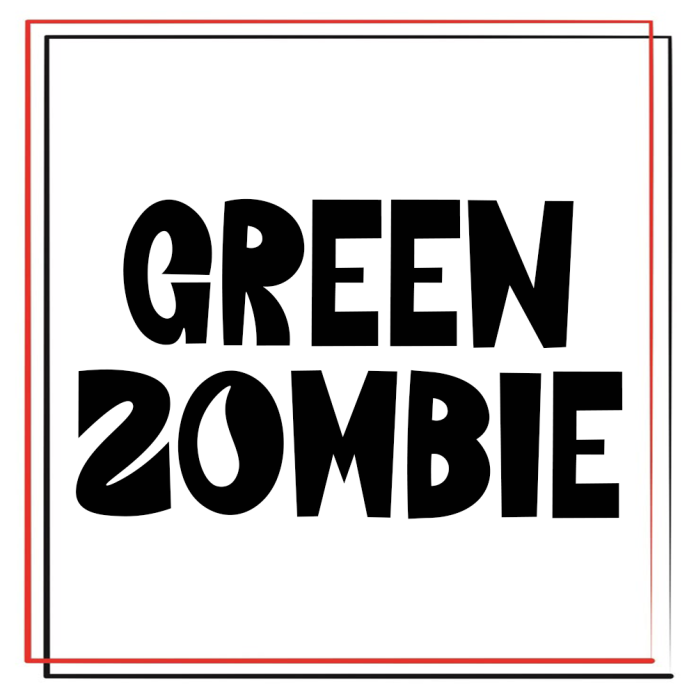
Green Zombie Font is a sweet and friendly handwritten font. Cute and fun, this font is ideal for writing wedding invitations, cards, or any other design that might need a fun touch!